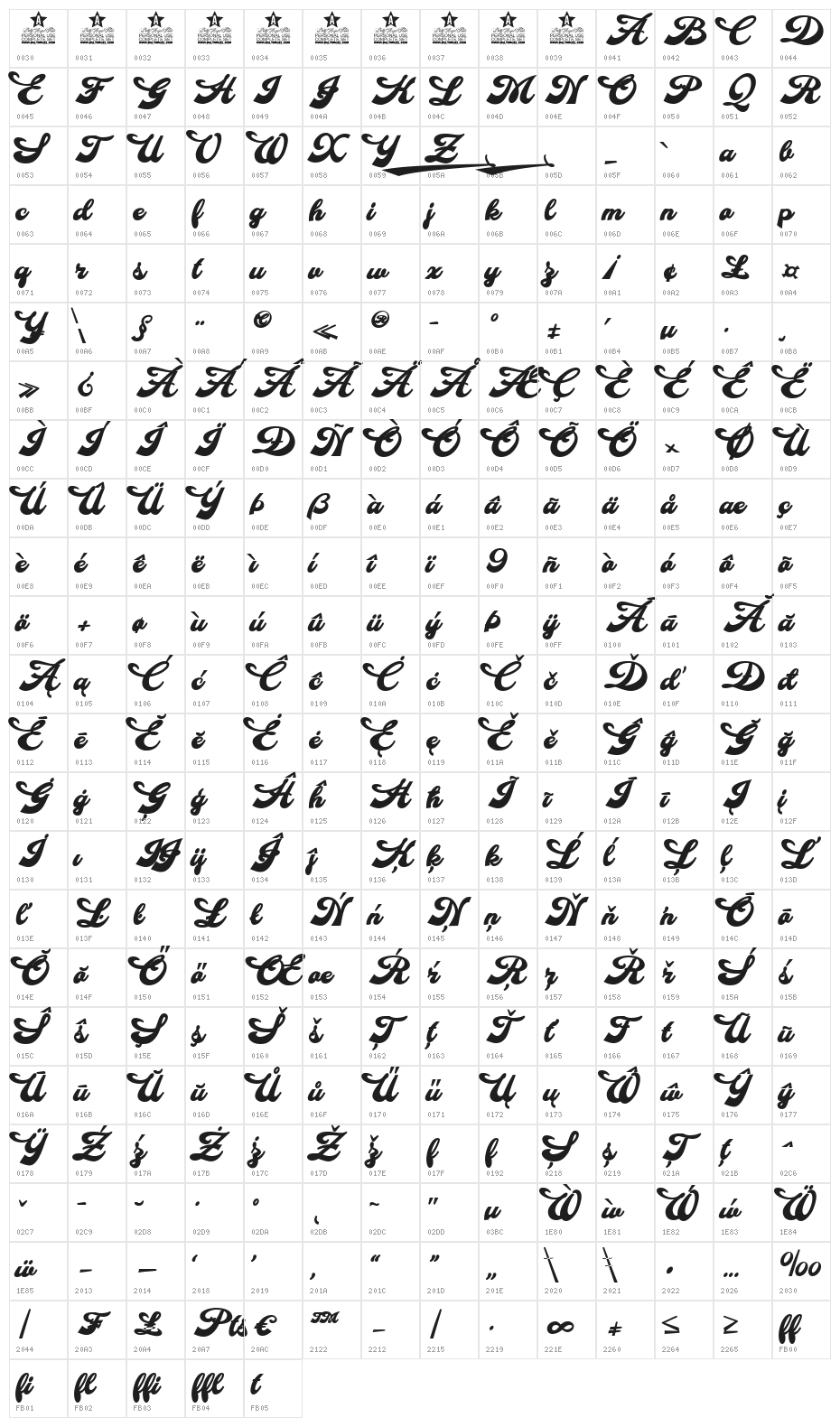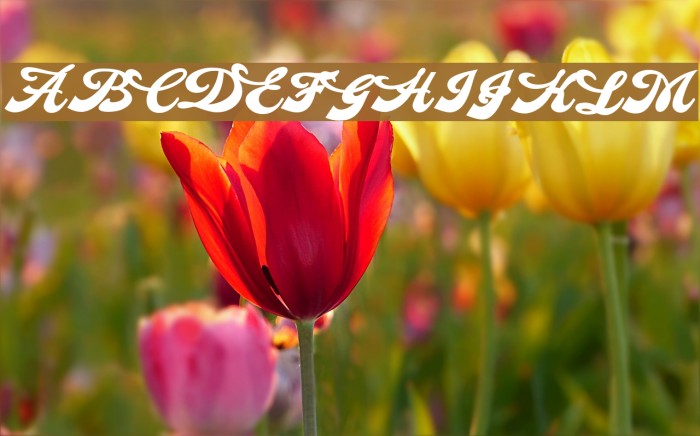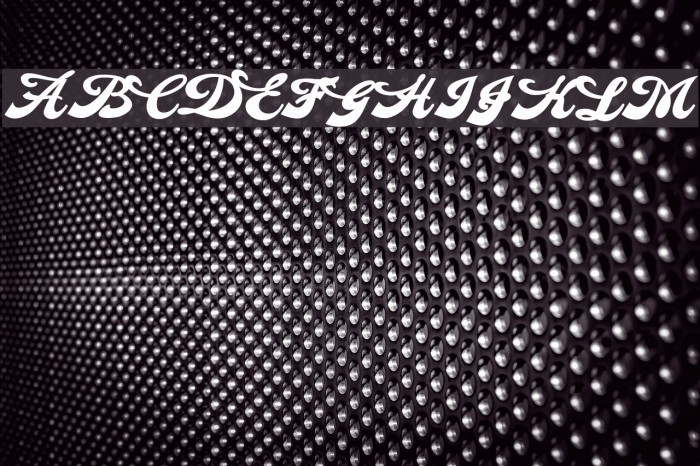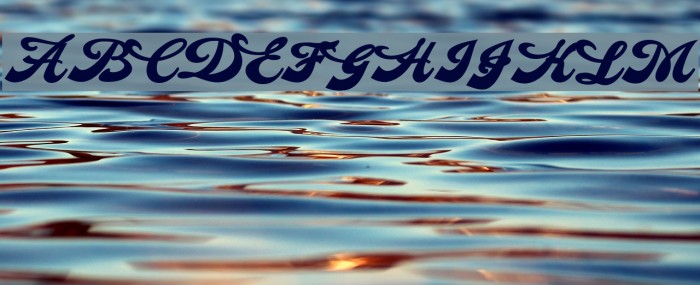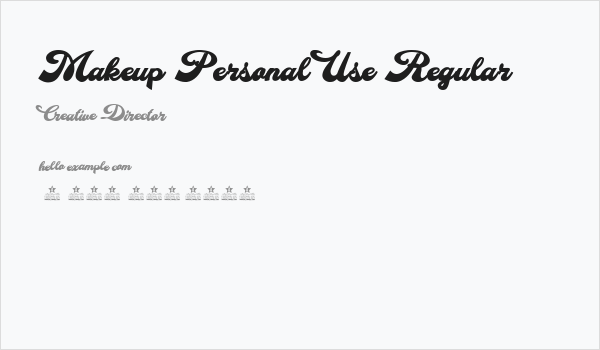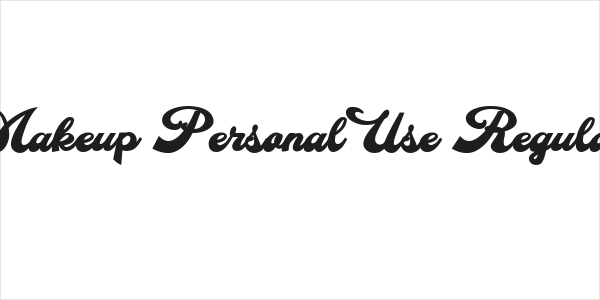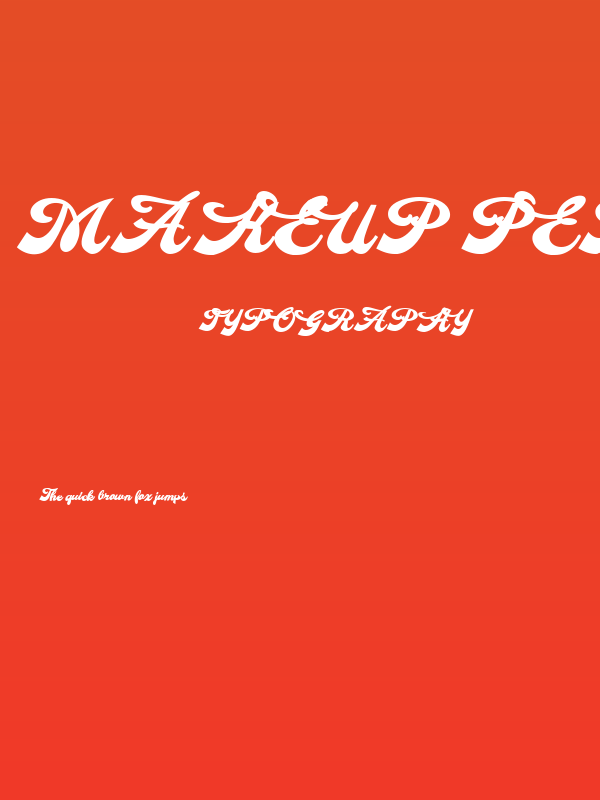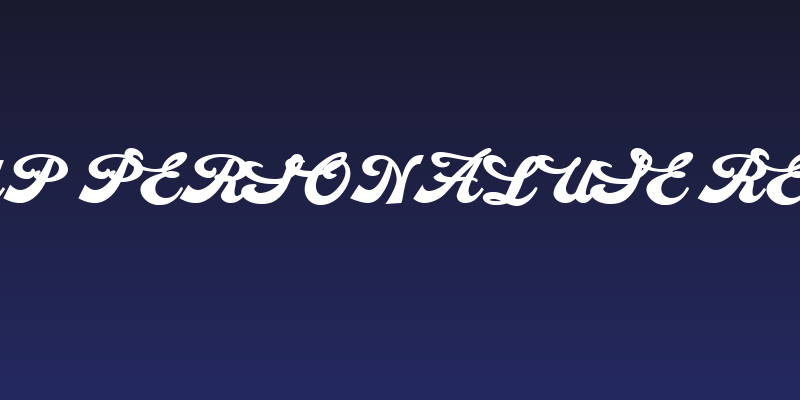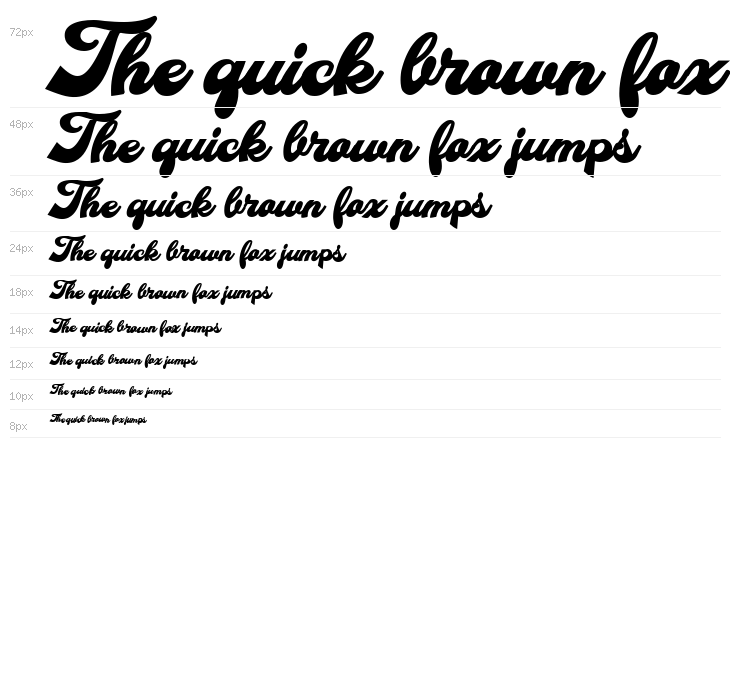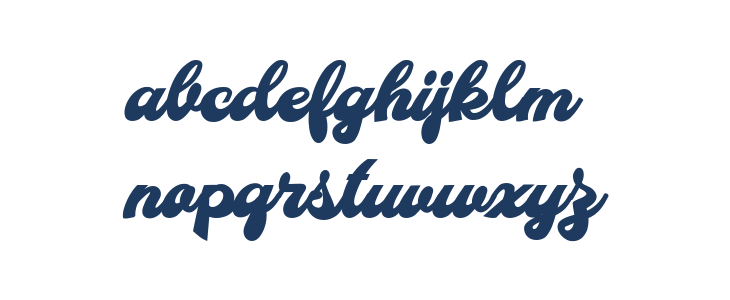
Makeup Personal Use Regular Font
Makeup Personal Use Regular Description
This font features a bold, cursive style with a flowing, connected script that exudes elegance and sophistication. The uppercase letters are slightly more ornate, with flourishes that enhance their decorative appeal. The lowercase letters maintain a consistent flow, making them ideal for creating a seamless, handwritten look. The font is characterized by its thick strokes and high contrast, which add to its dramatic and eye-catching appearance. This style is reminiscent of classic calligraphy, yet it maintains a modern twist with its bold presence.